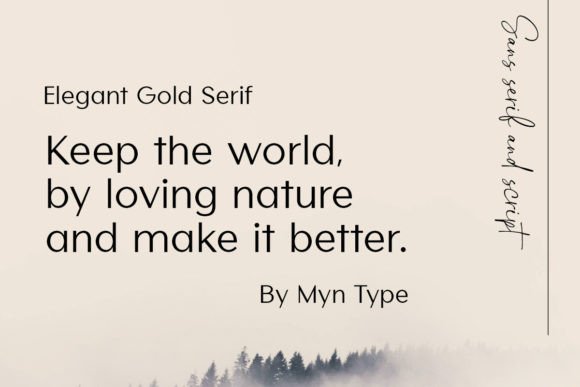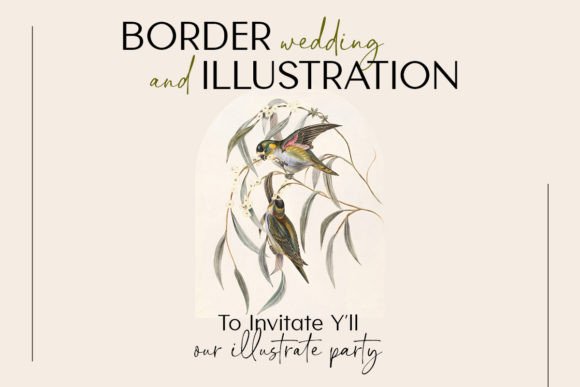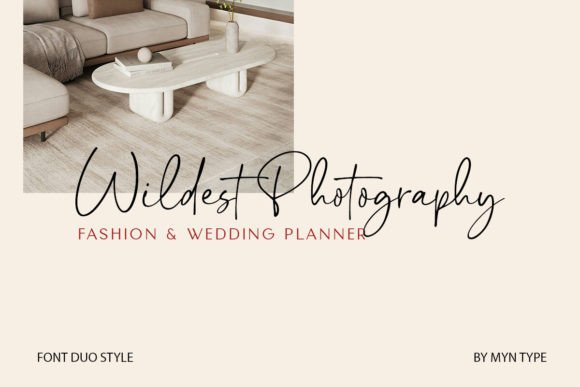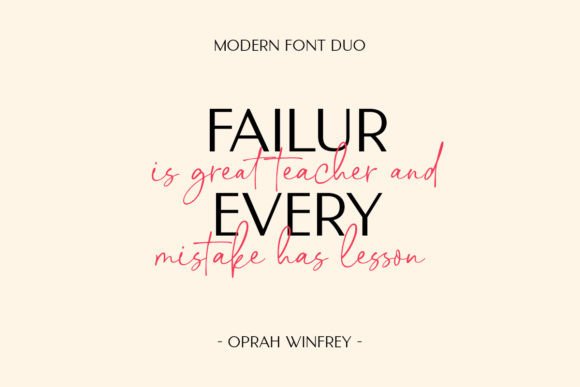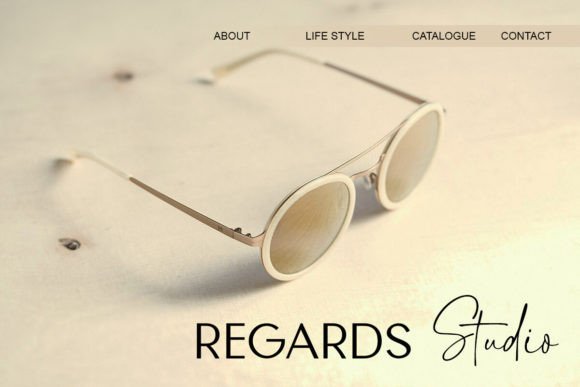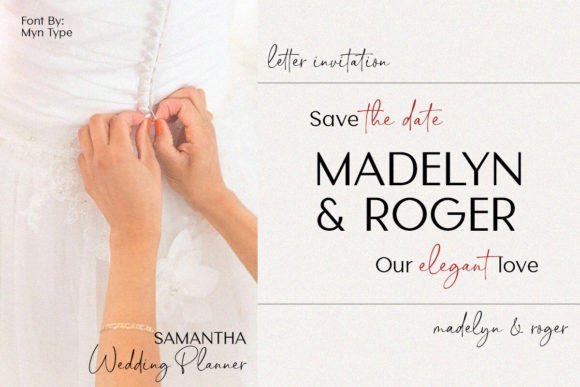
Introduction to Elegant Golden – Duo Font Font
Fonts play a crucial role in design, and the Elegant Golden – Duo Font font is a typeface that brings both character and versatility to any project. Whether you’re working on a branding project, a website, or a print design, the Elegant Golden – Duo Font font offers a unique style that can elevate your work.
Elegant Golden is a combination of two complementary typefaces designed to work together harmoniously, a sans-serif font paired with a script font.
This font pairing offers versatility and allows for various design applications, from branding, calligraphy logos, invitations, display product, wedding design, social media graphics, advertising, packaging, and many more because versatility of this font .
Key Features of Elegant Golden – Duo Font Font
Why Choose Elegant Golden – Duo Font Font?
The Elegant Golden – Duo Font font is more than just a typeface – it’s a design tool that helps you communicate your message with style and clarity. Its unique character set and versatile design make it suitable for a wide range of applications, from elegant invitations to bold headlines.
With its carefully crafted letterforms and balanced proportions, the Elegant Golden – Duo Font font ensures readability and visual appeal across all mediums.
What makes Elegant Golden – Duo Font font special?
The Elegant Golden – Duo Font font stands out with its unique design, exceptional readability, and versatility across various design applications.